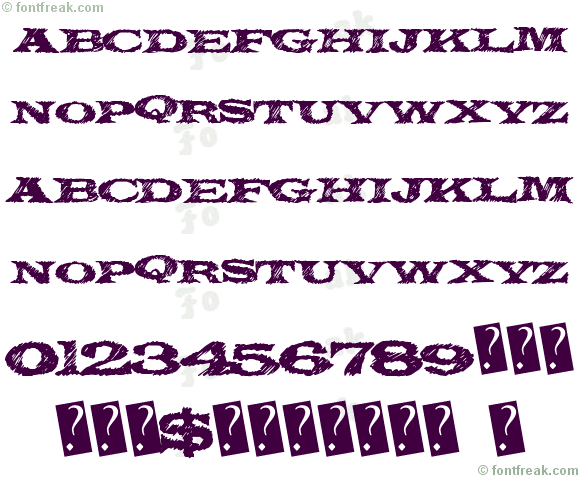
MysteryForest
About MysteryForest
MysteryForest by Xerographer Fonts is a captivating display font that combines elements of whimsy and intrigue, making it perfect for projects that require a touch of the fantastical. Its unique design features jagged, uneven edges that evoke a sense of mystery and adventure, reminiscent of a forest filled with secrets waiting to be uncovered. The font's stroke weight varies, adding depth and character, while the high contrast between the thick and thin lines enhances its visual appeal. The spacing is generous, allowing each letter to breathe, ensuring legibility even in larger formats.
This font shines in several specific use cases. It is ideal for creating eye-catching movie posters, particularly for genres like fantasy or horror, where evoking emotion is essential. Wedding invitations can also benefit from its whimsical charm, adding a playful yet elegant touch to any special occasion. Additionally, restaurant menus that aim to create a unique ambiance can use MysteryForest to convey a sense of adventure and creativity, attracting diners with its distinct personality. Content creators will find this font useful for social media graphics and promotional materials, as it stands out in a crowded digital landscape.
Targeting graphic designers, small business owners, and content creators, MysteryForest offers versatility and a memorable aesthetic that can elevate various projects. The font's freeware license makes it an accessible option for anyone looking to enhance their design toolkit without incurring costs. Ultimately, the MysteryForest font free download provides a unique opportunity to incorporate a narrative element into visual design, making it an exceptional choice for those seeking to leave a lasting impression. Its distinctive style not only captures attention but also invites curiosity, making it a standout option in the world of typography.